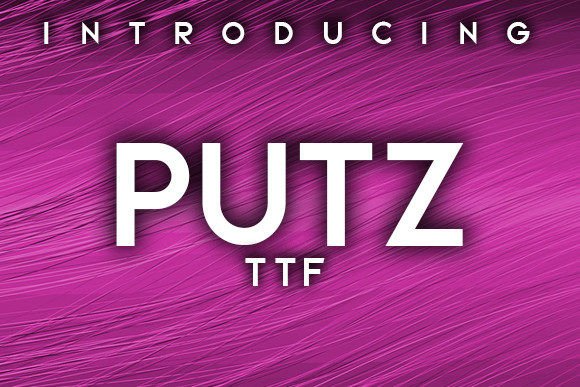
Introducing Putz Font, the ultimate Sans Serif font that will elevate your designs to new heights of elegance and sophistication. Created by the talented designer vladimirnikolic, this font is the perfect choice for anyone looking to add a touch of class to their projects.
With its clean and minimalist design, Putz Font offers a versatile solution for various design needs. Whether you're working on a wedding menu, a poster, a flyer, or even a t-shirt, this font will seamlessly blend in and make your creations stand out from the crowd.
Imagine the impact of using Putz Font on your wedding menu. Its graceful curves and timeless appeal will instantly captivate your guests, setting the tone for a truly memorable event. The delicate strokes of each letter exude elegance, making this font an ideal choice for any wedding theme.
But the beauty of Putz Font doesn't stop there. Its versatility extends beyond weddings, making it a valuable asset for any designer. Create eye-catching posters that demand attention, with each word effortlessly grabbing the viewer's gaze. Craft compelling flyers that instantly convey your message, leaving a lasting impression on anyone who sees them.
And let's not forget about t-shirts. Putz Font will transform your designs into wearable art, making a bold statement wherever you go. Its timeless appeal ensures that your creations will remain fashionable and relevant for years to come.
Choosing Putz Font means choosing excellence. Its carefully crafted letters, meticulously designed by vladimirnikolic, showcase a level of artistry that is second to none. Each character is a work of art, meticulously crafted to perfection.
So why settle for ordinary when you can have extraordinary? With Putz Font, your designs will exude elegance, sophistication, and a touch of magic. Let your creativity flow and watch as your projects come to life with this captivating font.